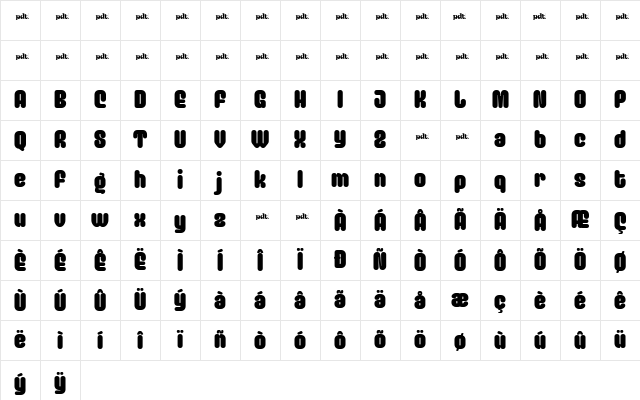
AENOS Regular Free Font
AENOS Regular
Foundry: productype
Designer: ROZI
Design Context for AENOS
AENOS is a composed and adaptable typeface that performs quietly and consistently across a wide range of design contexts.